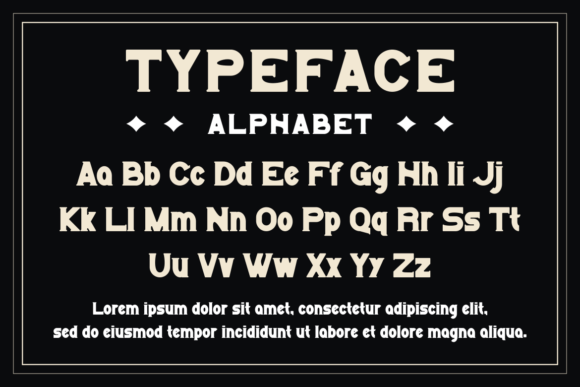
Baddan Font: The Ultimate Modern Display Font for Your Branding Needs
In the world of typography, fonts play a crucial role in conveying the tone and personality of a brand. With the vast array of fonts available, it can be overwhelming to choose the right one that accurately represents your brand’s identity. However, if you’re looking for a bold and authentic display font that can elevate your branding projects, look no further than the Baddan Font. In this article, we’ll explore the features, benefits, and uses of the Baddan Font, and why it’s an excellent choice for your next branding project.
What is Baddan Font?
Baddan Font is a modern display font designed to make a statement. Its bold and authentic style makes it perfect for branding projects that require a strong visual presence. The font is versatile and can be used for a wide range of applications, from logos and t-shirt printing to product packaging and more.
Benefits of Using Baddan Font
So, why choose Baddan Font for your branding needs? Here are some benefits that make it an excellent choice:
- Bold and Authentic Style: Baddan Font boasts a bold and authentic style that grabs attention and makes a lasting impression.
- Versatility: The font is suitable for a wide range of branding projects, from logos and t-shirts to product packaging and more.
- Easy to Read: Despite its bold style, Baddan Font is easy to read, making it perfect for headlines, titles, and short paragraphs.
- Unique and Creative: Baddan Font’s unique design makes it stand out from the crowd, allowing your brand to differentiate itself from competitors.
Uses of Baddan Font
Baddan Font is an incredibly versatile font that can be used in various branding projects, including:
- Logo Design: Create a bold and memorable logo that accurately represents your brand’s identity.
- T-Shirt Printing: Design eye-catching t-shirts that make a statement with Baddan Font.
- Product Packaging: Elevate your product packaging with a bold and authentic font that grabs attention.
- Advertising and Marketing Materials: Use Baddan Font in your advertising and marketing materials, such as brochures, flyers, and posters.
Characteristics of Baddan Font
Baddan Font has several characteristics that make it an excellent choice for branding projects:
- Bold and Authentic Style: Baddan Font’s bold and authentic style makes it perfect for headlines, titles, and short paragraphs.
- Clean and Minimalist Design: The font’s clean and minimalist design makes it easy to read and versatile for various branding projects.
- High-Quality Vector Graphics: Baddan Font is designed with high-quality vector graphics, ensuring that it looks sharp and clear in various resolutions.
Tips for Using Baddan Font
To get the most out of Baddan Font, here are some tips to keep in mind:
- Use it for Headlines and Titles: Baddan Font is perfect for headlines and titles, so use it to grab attention and make a statement.
- Pair it with Other Fonts: Experiment with pairing Baddan Font with other fonts to create a unique and creative visual identity.
- Adjust Font Size and Color: Adjust the font size and color to suit your branding needs and ensure that it looks great in various contexts.
In conclusion, Baddan Font is an excellent choice for branding projects that require a bold and authentic display font. Its versatility, ease of use, and unique design make it perfect for a wide range of applications, from logos and t-shirts to product packaging and more. With Baddan Font, you can elevate your branding projects and make a lasting impression on your audience.